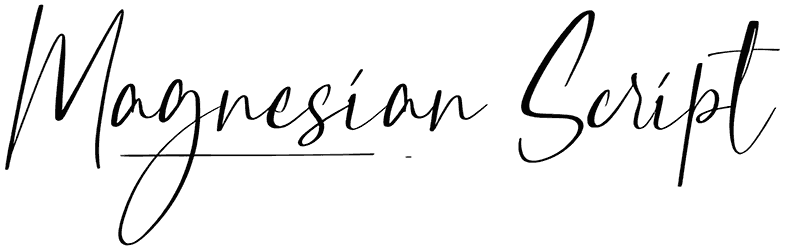
Magnesian Script Font
Give an elegant and natural visual to your words with this signature font to present your project in a captivating manner. The letters of the Magnesian Script font have a smooth and delicate style, but it doesn’t offer numbers and punctuation marks. Set this handwritten font on your new designs of a business card for a designer and impress your followers.